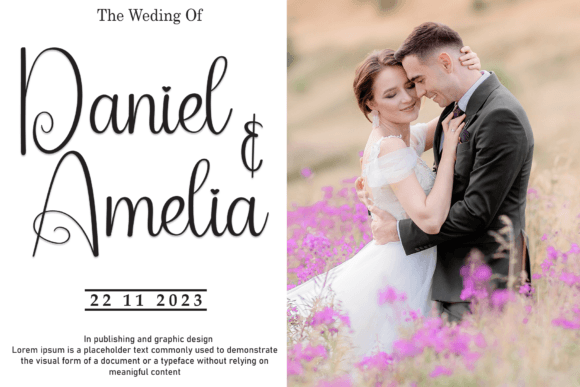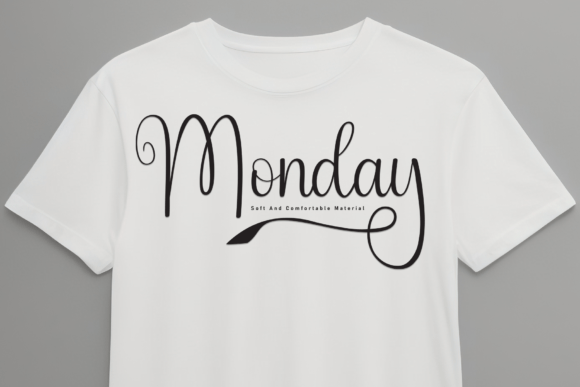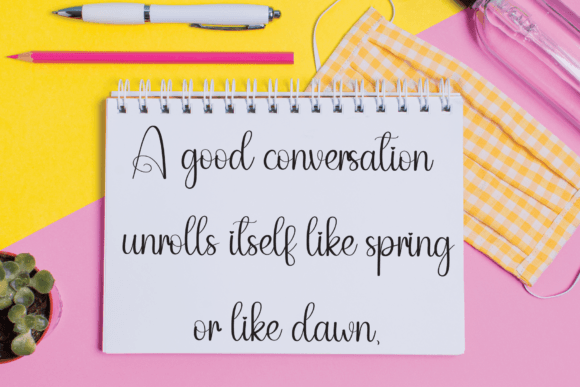
Introduction to Christmas Courage Font
As designers, we’ve all been there – staring at a blank page, trying to find the perfect font to bring our creative project to life. The moment of truth arrives when we stumble upon a font that perfectly captures the essence of our design. For many, this moment is a result of discovering the Christmas Courage Font – a sweet and friendly handwritten display font that’s sure to add a fun touch to any design.
This delightful font is ideal for writing wedding invitations, cards, or any other design that requires a playful and festive vibe. With its high-quality design and transparent background, it’s no wonder why the Christmas Courage Font has become a valuable resource for designers. Whether you’re working on a holiday-themed project or just need a fun touch to spice up your design, this font is sure to deliver.
What sets the Christmas Courage Font apart from other design resources is its versatility and ease of use. With a free download available, designers can easily incorporate this font into their next creative project and take it to the next level.
Key Features of Christmas Courage Font
- High-quality, bold font perfect for creative projects and designs
- Transparent background for easy integration into various design resources
- Comes in multiple sizes and resolutions, ideal for use in digital and print designs
- Unique, festive design elements make it perfect for Christmas-themed projects and designs
- Supports various languages, making it a versatile design resource for global projects
Honest Review: Christmas Courage Font
I recently had the opportunity to test the Christmas Courage Font, a free design resource that I was excited to incorporate into a creative project. Overall, I was pleased with the results, but there were a few things that caught my attention.
- ✨ The font’s bold and playful style is perfect for creating eye-catching headings and titles.
- ✨ The high quality of the font files ensures a smooth and seamless experience, even when used on a transparent background.
- ⚠️ The font’s character set is limited, which may not be ideal for projects that require a wide range of characters or languages.
- ⚠️ The font’s weight may not be suitable for all design contexts, as it can be a bit overwhelming when used in large quantities.
Overall, I was impressed with the Christmas Courage Font’s potential and would definitely consider using it in future creative projects. With a few tweaks to address the limitations, I believe this font could be a top choice for designers looking for a high-quality, free design resource.
Tips for Getting the Most Out of Christmas Courage Font
Experiment with different font sizes and styles to create visual interest. Use the font in combination with other design elements to create a cohesive look. Consider using the font for headings and titles to draw attention to important information.
The Christmas Courage Font is perfect for creating festive designs, such as holiday cards, gift tags, and party invitations. It’s also great for creating inspirational quotes and messages, as well as branding materials like logos and business cards.